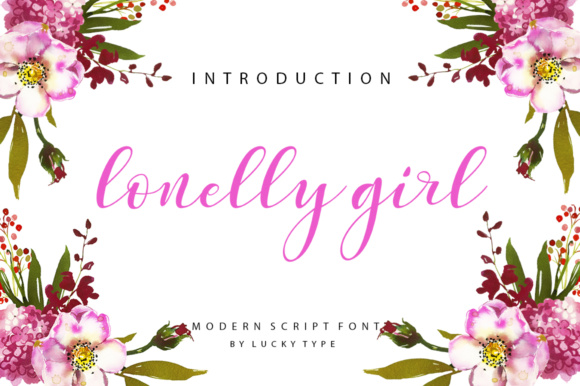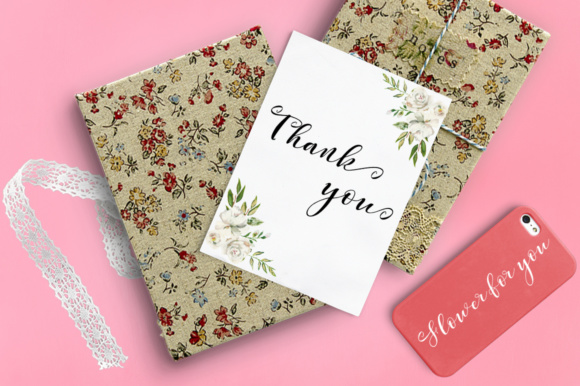
About Lonelly Girl Font
The Lonelly Girl is a new, modern script font with an irregular baseline and a trendy and feminine style. It looks lovely on wedding invitations, thank you cards, quotes, greeting cards, logos, business cards and more. Perfect for using in ink or watercolor.